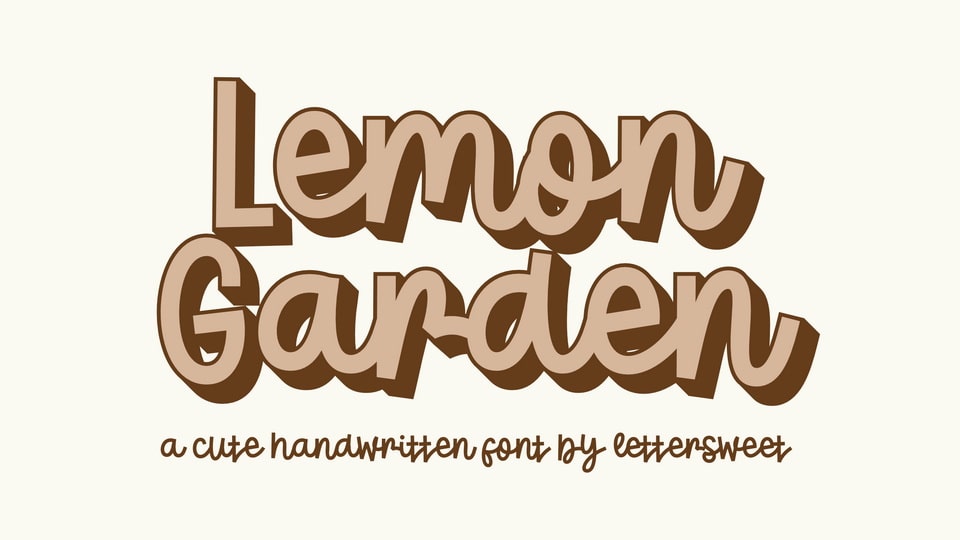
Download Lemon Garden font, a cute and playful handwritten typeface that brings a fresh and cheerful vibe to your designs with its smooth curves and bouncy style.